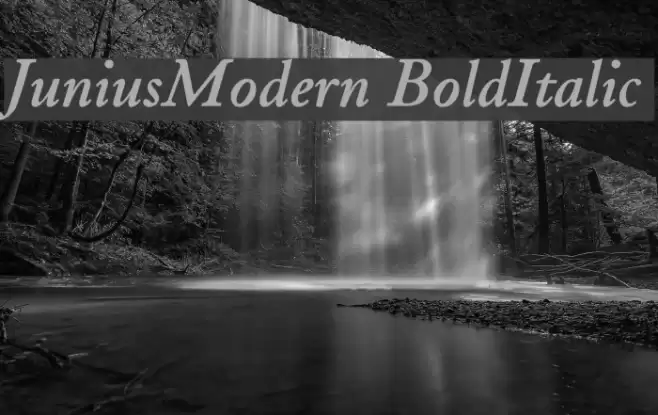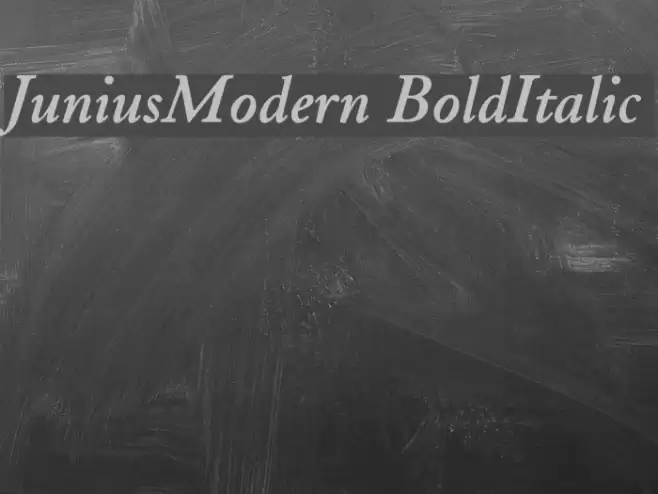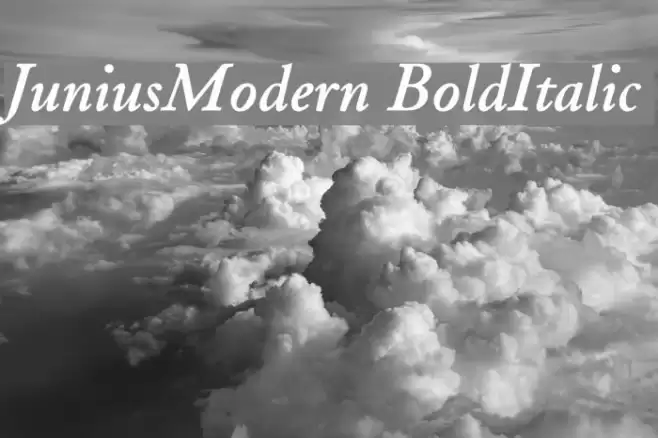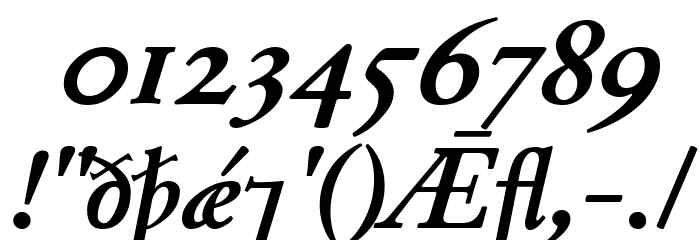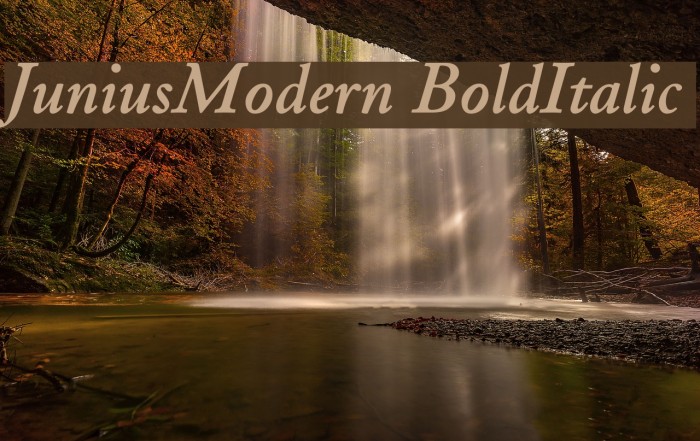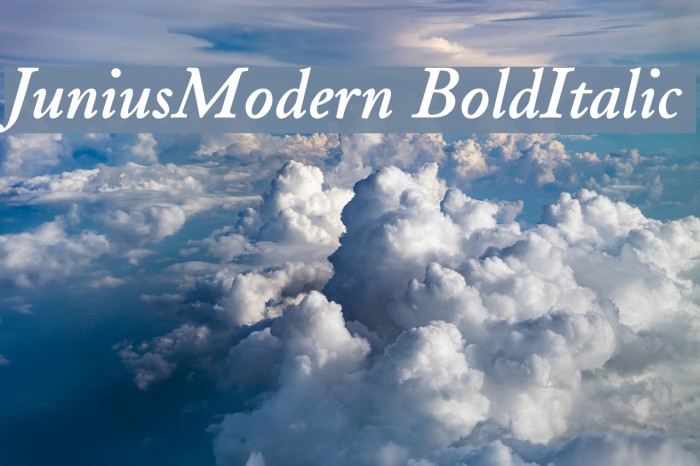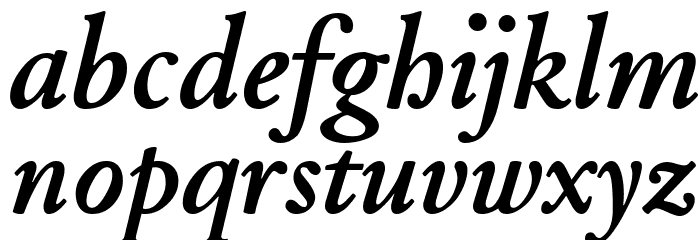
JuniusModern BoldItalic Font
JuniusModern BoldItalic Description
This font exhibits a bold and italicized style, characterized by its elegant and flowing letterforms. The uppercase letters are slightly condensed with a noticeable slant, giving a sense of movement and sophistication. The lowercase letters maintain a consistent style, with smooth curves and a dynamic appearance. The numerals are distinct and easy to read, matching the overall boldness of the font. Special characters are well-integrated, maintaining the font's aesthetic. This typeface combines modern sensibilities with a classic italic flair, making it versatile for various design needs.
A bold, italicized font with elegant, flowing letterforms and a modern yet classic appeal from Round fonts.
- Proposed Projects: Ideal for branding, editorial design, book covers, and elegant invitations.
- Width: Condensed
- Use Case: Headlines, Logos, Editorial design